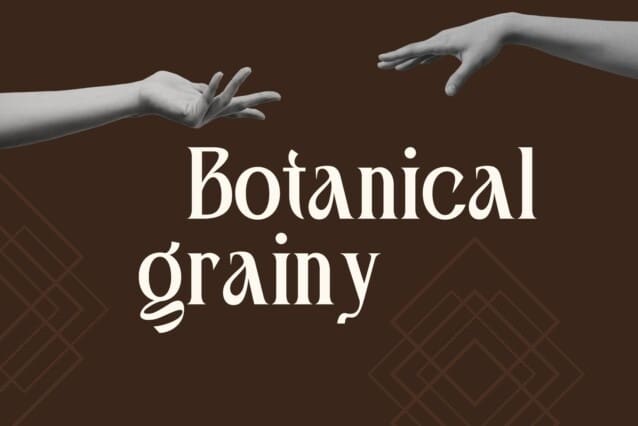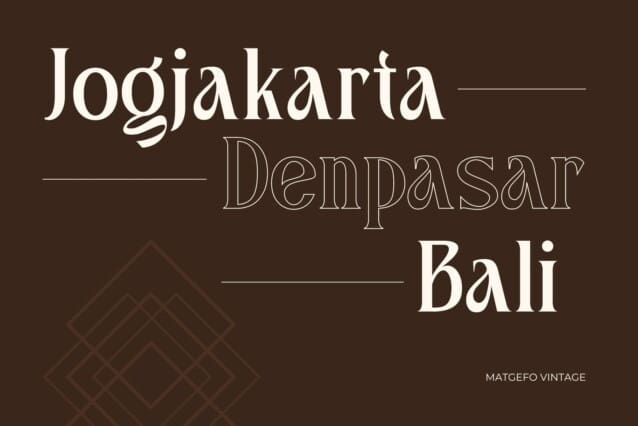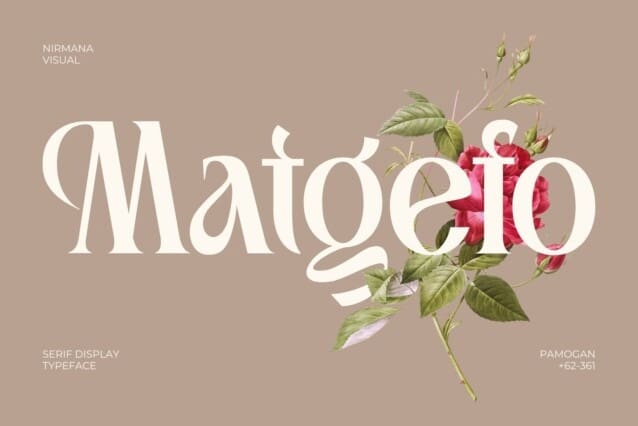
Matgefo Font
Matgefo Font offers beautiful typographic harmony for a diversity of design projects, including logos & branding, social media posts, advertisements & product designs.